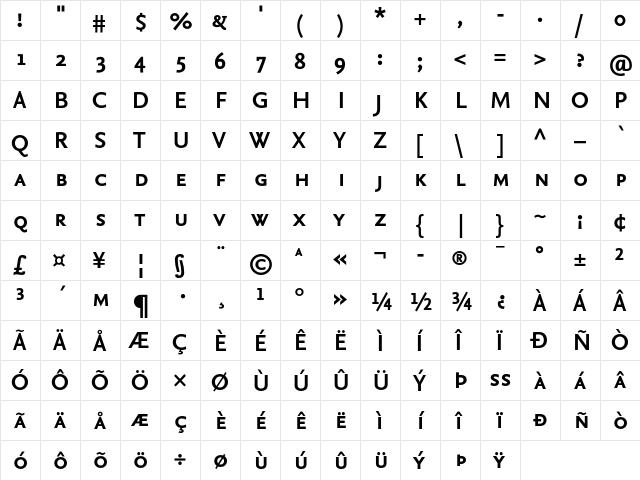
NexusSans Bold SC
Design Context for NexusSans Typeface
NexusSans takes a measured approach to typography — its balanced proportions and neutral character make it a reliable workhorse for both digital and print work. The heavy weight commands attention and anchors typographic hierarchies.